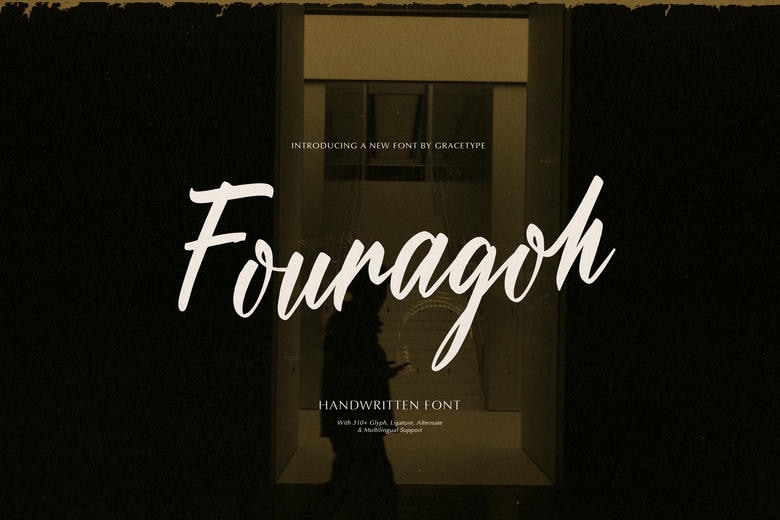
Fouragoh Font
Fouragoh is a classy script font, which can be used on any projects: logos, branding works, homeware designs, product packaging, mugs, quotes, posters, shopping bags, t-shirts, book covers, name cards, invitation cards, greeting cards, label, photography and watermark, special events, and other beautiful projects that require a Script touch.
Fouragoh Handwritten Script Font